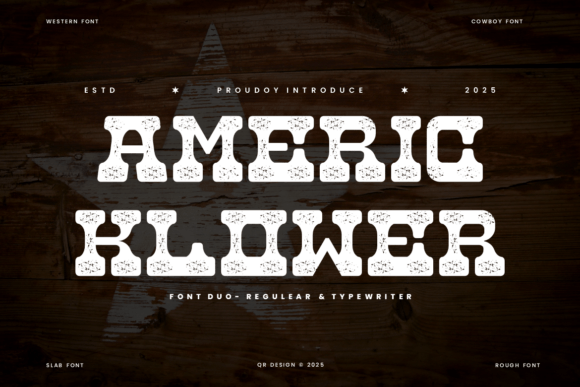
Americ Klower Font: Rugged Slab Serif for Bold Campaigns
Last Tuesday, while finalizing the visual assets for an upcoming artisanal coffee subscription launch, I hit a familiar creative wall. The product photography was stunning, and the copy was sharp, but the headline typography felt disconnected from the brand’s heritage story. I needed something that communicated authenticity without looking like a costume party. That is when I integrated Americ Klower into the campaign workflow. Bring the rugged charm of the Wild West to your designs with Americ Klower, a bold slab serif font duo featuring Regular and Typewriter styles. Its textured, vintage-inspired look captures the essence of handcrafted quality, instantly transforming generic promotional graphics into a cohesive brand narrative. As one of the most versatile Decorative Fonts in my current arsenal, it solved the immediate problem of establishing mood while maintaining commercial readability.
Americ Klower for Product Launch Graphics and Heritage Branding
When designing high-stakes product launch materials, Americ Klower serves as more than just a stylistic choice; it acts as a primary communication tool for brand identity. In our coffee campaign, the goal was to signal "small-batch" and "historically rooted" within milliseconds of a user seeing the ad. The Regular style of this typeface carries enough weight to anchor a hero image on a landing page, yet its distressed edges prevent it from feeling corporate or sterile. For marketers managing brand consistency across multiple touchpoints, this specific texture does the heavy lifting that filters and overlays usually attempt to fake. It provides an organic foundation that makes modern products feel established and trustworthy.
The strategic value here lies in emotional resonance. When we tested the initial clean sans-serif headlines against the Americ Klower display text, the latter created an immediate association with craftsmanship. This is crucial for premium pricing strategies where the perceived value relies heavily on aesthetic storytelling. By utilizing the bold slab serif structure, we maintained excellent legibility at large sizes while injecting the necessary character. It bridges the gap between historical nostalgia and contemporary e-commerce functionality, ensuring the font supports the sales message rather than distracting from it.
Americ Klower Typewriter Style for Social Media Captions and Overlays
Social media managers know that engagement often hinges on stopping the scroll, and the Typewriter variation of Americ Klower is specifically engineered for this micro-interaction. While the Regular style handles the main headers, the Typewriter style excels in supporting roles like Instagram carousel text, quote cards, and Pinterest pin descriptions. During our campaign, we used this monospaced variant to highlight key product specs and limited-time offer details. The mechanical rhythm of the typewriter face creates a distinct visual cadence that separates informational text from emotional headlines, guiding the viewer’s eye through the content hierarchy naturally.
This duality is what makes the font duo so effective for digital advertising sets. You are not forced to pair two unrelated typefaces that might clash; instead, you have a harmonized system designed to work in tandem. On mobile screens, where space is at a premium, the Typewriter style remains crisp even when overlaid on busy photography. We found it particularly effective for "swipe left" prompts and testimonial snippets, where the retro-mechanical aesthetic implies honesty and raw feedback. For content creators building templates for Reels covers or TikTok text overlays, this style offers a recognizable signature that reinforces brand recall without sacrificing clarity.
Optimizing Readability with Americ Klower in Digital Ad Sets
A common concern with Decorative Fonts is whether they sacrifice performance for style, but Americ Klower proves that rugged aesthetics can coexist with conversion-focused design. When preparing thumbnails for YouTube or preview images for email newsletters, contrast and spacing become paramount. The textured nature of this font requires careful handling against complex backgrounds. In our workflow, we discovered that adding a subtle drop shadow or using a solid color block behind the text significantly improved accessibility scores without diminishing the vintage vibe. The bold slab serifs provide natural anchor points that help the eye track letters quickly, which is essential for fast-paced digital environments.
For paid social ads, where every pixel counts toward click-through rates, we utilized the font’s inherent weight to create urgency. Short, punchy phrases set in Americ Klower outperformed lighter weights in A/B testing because they commanded attention in crowded feeds. However, restraint is key. This typeface is a display workhorse, meaning it shines brightest in short headlines, callouts, and logo-style treatments. Attempting to use it for long-form body copy will fatigue the reader. Instead, let it serve as the hook that draws the audience in, then transition to a clean sans serif or simple serif for the detailed explanation. This strategic pairing ensures the campaign remains visually exciting while delivering information efficiently.
Pairing Americ Klower with Modern Typography Systems
Successful campaign design rarely relies on a single font, and knowing how to pair Americ Klower is critical for professional results. Because the font possesses such strong personality and texture, it demands a partner that provides stability and neutrality. In our recent projects, we paired the Regular style with geometric sans serifs for subheaders and UI elements. The contrast between the organic, weathered slabs and the precise, mathematical lines of modern geometry creates a dynamic tension that feels both fresh and timeless. This approach prevents the design from looking like a period piece and keeps it grounded in current marketing trends.
For brands leaning harder into the artisanal or literary niche, pairing the Typewriter style with a delicate script font can soften the overall aesthetic. The mechanical rigidity of the typewriter balances the fluidity of handwriting, creating a sophisticated editorial look suitable for packaging design or luxury stationery. When selecting these partners, always check the x-height and cap height alignment to ensure baseline consistency. The goal is to make the mixed typography feel intentional and unified. Whether you are designing a webinar banner or an online shop collection header, the right combination amplifies the strengths of Americ Klower while mitigating any potential readability issues associated with textured display fonts.